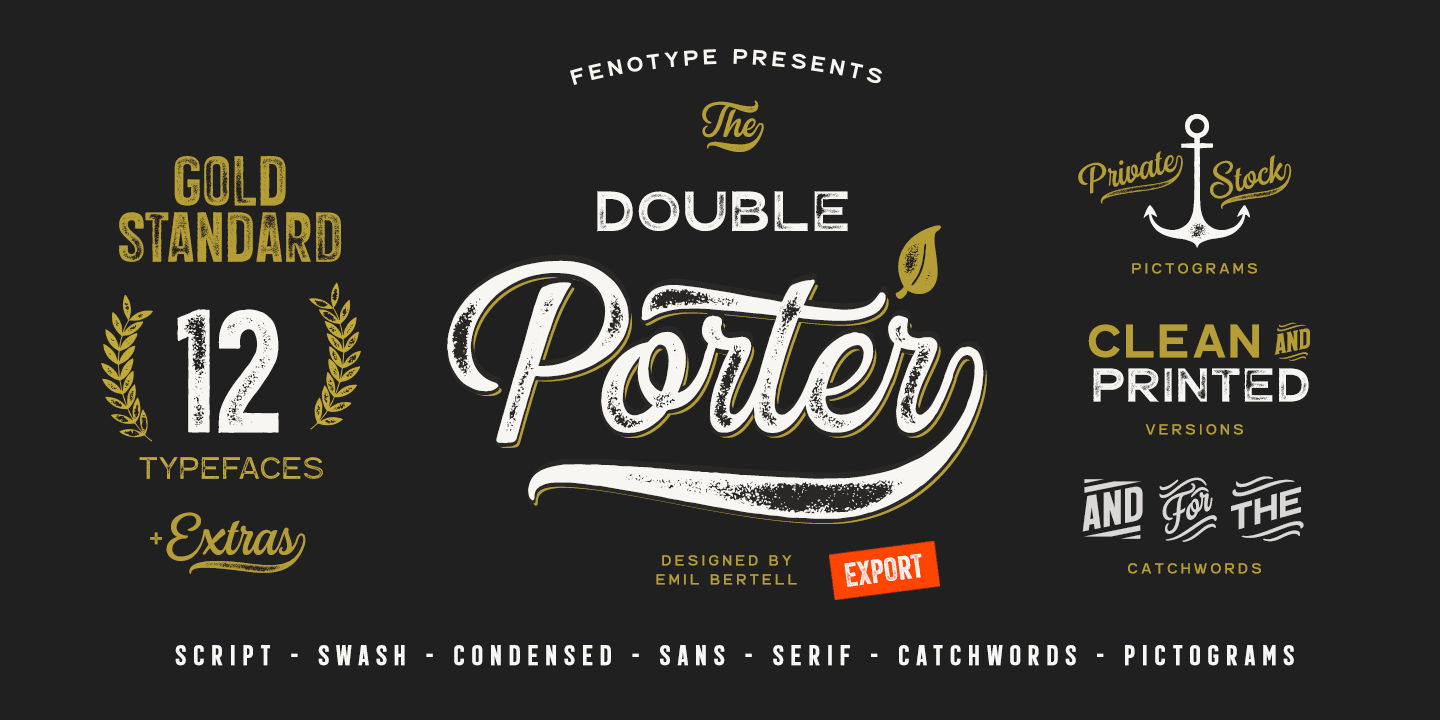
The Double Porter Font is ideal for authentic vintage design projects including craft brewery labels, artisanal beer packaging, vintage pub signage, industrial bar decor, steampunk-themed materials, old-fashioned distillery branding, retro beverage advertisements, and nostalgic hospitality venues. This robust typeface brings genuine industrial heritage and craft brewing tradition to any design project celebrating artisanal craftsmanship and vintage brewing culture.
What makes Double Porter Font so exciting is its authentic embodiment of traditional brewing industry aesthetics with bold, industrial-strength letterforms that capture the essence of craft beer heritage and artisanal quality. The letters feature sturdy, workmanlike characteristics with vintage brewing influences that create an immediate sense of authenticity and handcrafted excellence. This distinctive brewery character makes it perfect for brands and projects that want to communicate tradition, quality craftsmanship, and the timeless appeal of artisanal brewing culture.
The Double Porter Font family typically includes regular and bold variations, often with distressed and aged effects that enhance its vintage brewery authenticity. Many versions feature brewing symbols, industrial ornaments, and craft beer-inspired decorative elements that provide designers with authentic brewery branding solutions.
Whether you're designing for craft breweries, artisanal beverage brands, or vintage-themed hospitality venues, Double Porter Font Free Download provides the perfect solution for projects that need to convey brewing tradition and craft authenticity. This font transforms standard text into robust brewery designs that immediately communicate quality craftsmanship, brewing heritage, and artisanal excellence to beer enthusiasts and craft beverage connoisseurs.